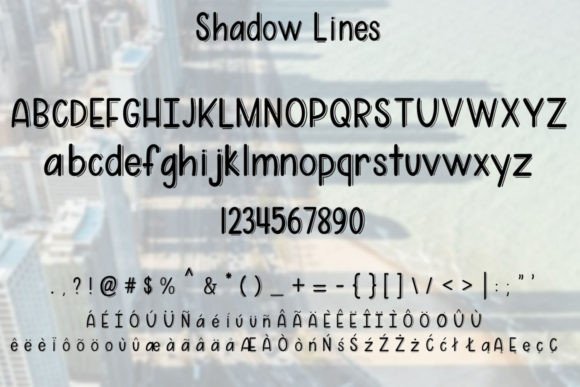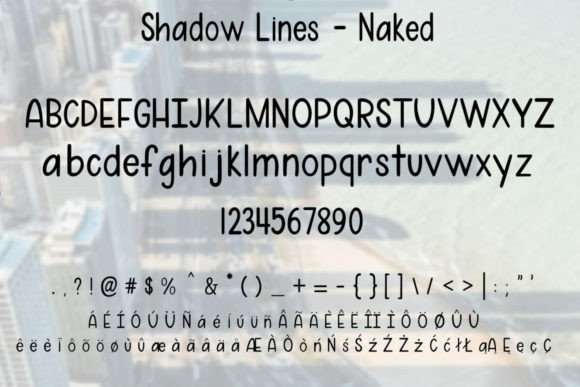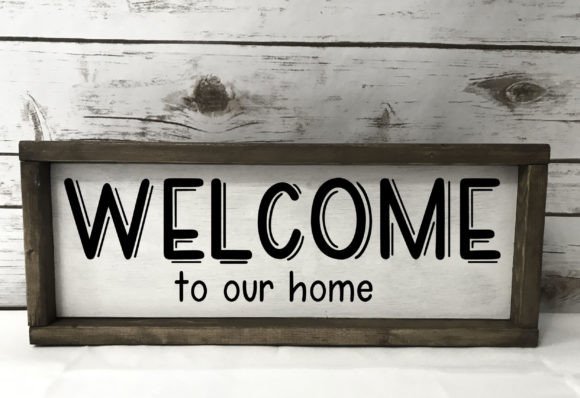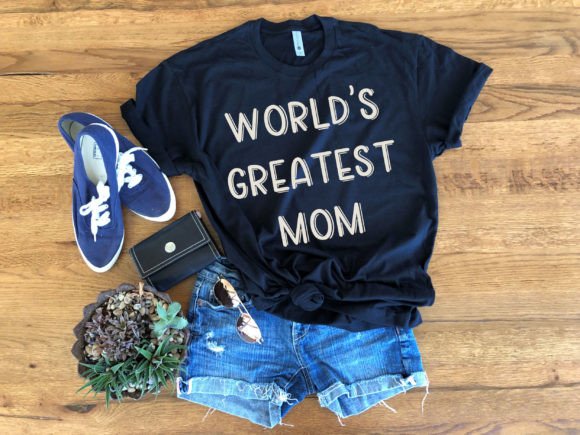
Introduction to Shadow Lines Font
As a designer, you know the thrill of bringing a creative project to life. It’s that moment when your vision starts to take shape, and you can almost see the final result. But sometimes, that perfect font can be the missing piece that elevates your design to the next level. That’s where the Shadow Lines Font comes in – a stunning duo font that’s about to revolutionize your design process.
With its incredibly versatile design, the Shadow Lines Font is the perfect addition to any creative project. Its transparent background allows for seamless integration with your design, making it a high-quality resource for any designer. Whether you’re working on a personal or professional project, this font is sure to make your designs stand out.
Discover the Power of Shadow Lines Font
Key Features of Shadow Lines Font
- Features a unique blend of modern and vintage elements, perfect for adding a touch of sophistication to any design.
- Perfect for creating eye-catching titles, headings, and other design elements for a wide range of creative projects.
Honest Review: Shadow Lines Font
I recently had the opportunity to work with the Shadow Lines Font, and I must say it’s a great addition to any designer’s toolkit. This font is perfect for adding a touch of elegance and sophistication to a creative project.
Here are some of the things that I like about the Shadow Lines Font:
- ✨ High quality design that stands out with its unique style.
- ✨ Seamless integration with transparent backgrounds, making it perfect for projects that require a lot of layering.
- ✨ Great resource for designers looking for a high-quality font to add some depth to their designs.
- ⚠️ Limited character set, which may be a problem for designers working on complex projects.
- ⚠️ May not be suitable for projects that require a lot of text, as it can be a bit difficult to read in certain sizes.
Overall, I’m really impressed with the Shadow Lines Font. It’s a high-quality design resource that can add a lot of depth and sophistication to a project. If you’re a designer looking for a unique font to add to your collection, I would definitely recommend giving it a try.
Shadow Lines Font
Getting the Most Out of Shadow Lines Font
For maximum impact, use Shadow Lines Font in combination with a high-quality image or graphic. Experiment with layering and blending modes to achieve a unique and creative look. Additionally, use the font in conjunction with other design elements to add depth and visual interest to your design project.
Shadow Lines Font is ideal for use in creative projects, such as brochures, flyers, and posters. It can also be used in presentations, documents, and websites to add a touch of elegance and sophistication. With its unique and eye-catching design, Shadow Lines Font is a valuable addition to any designer’s toolkit.